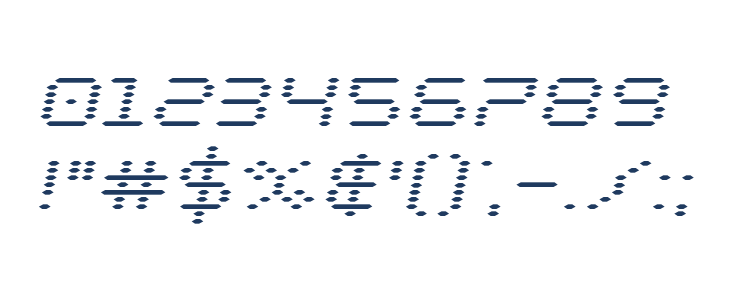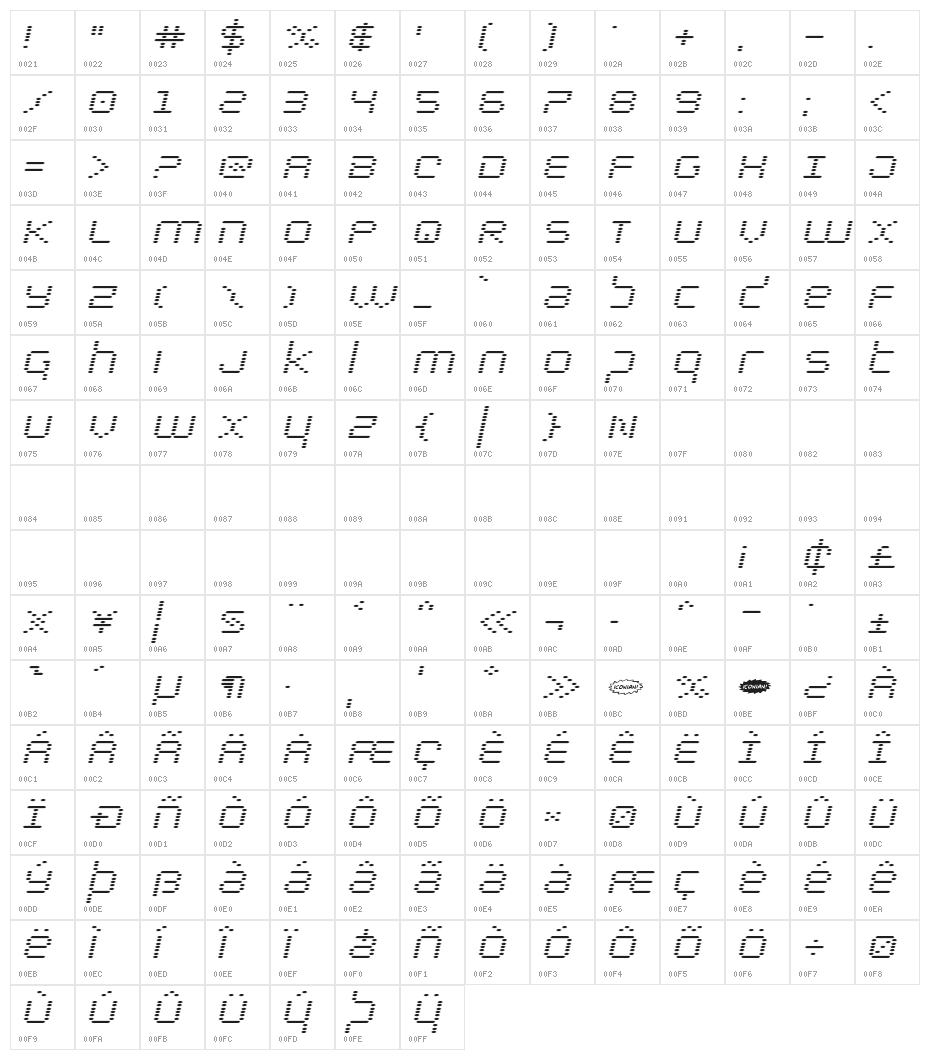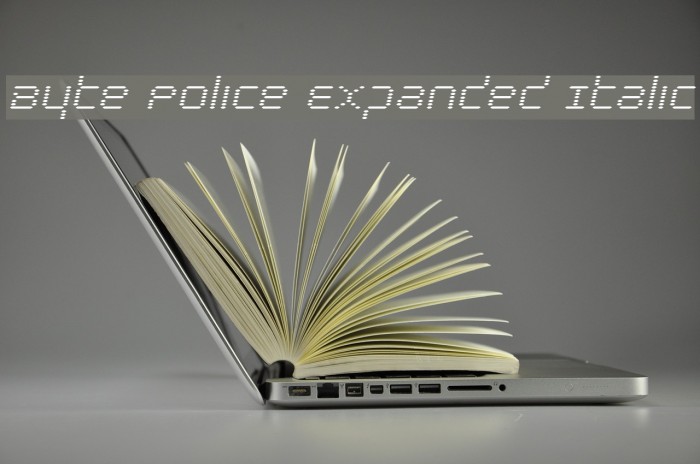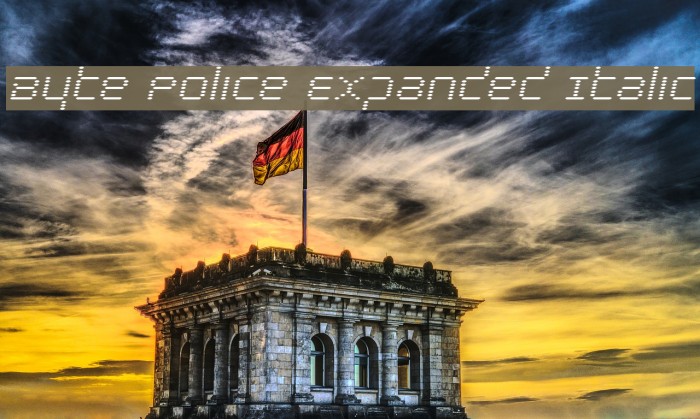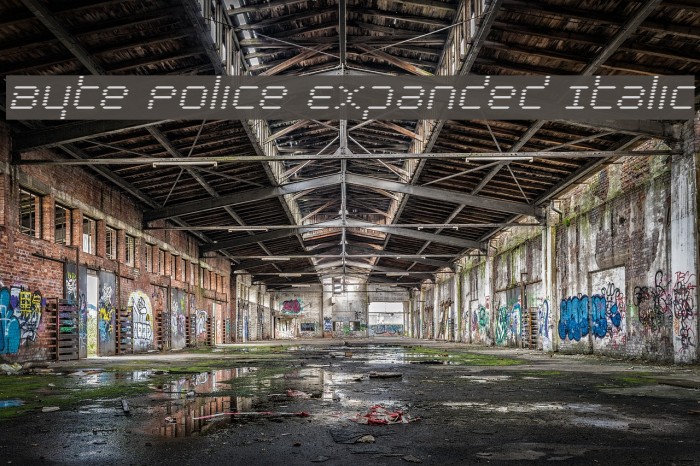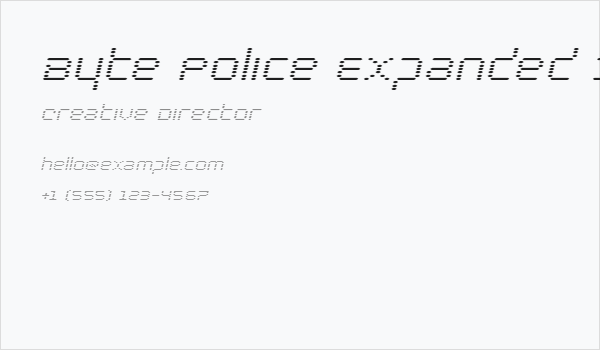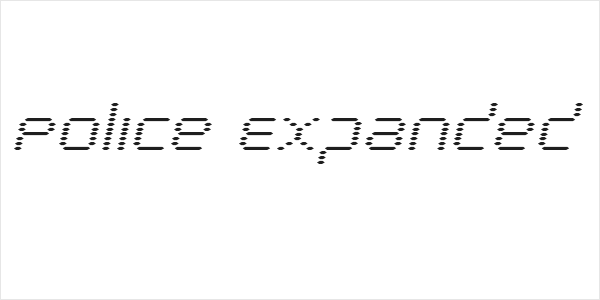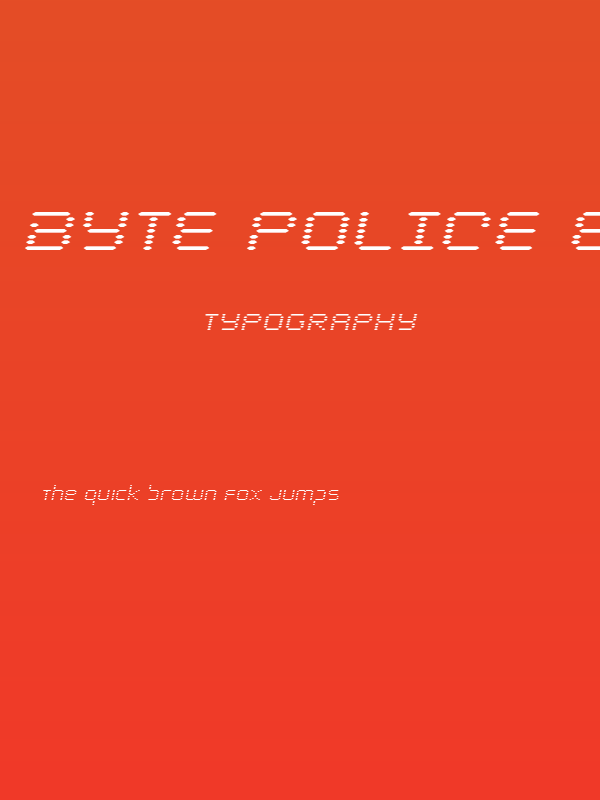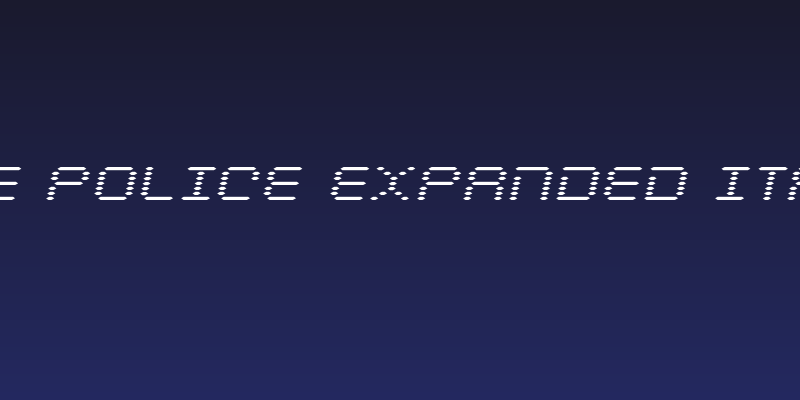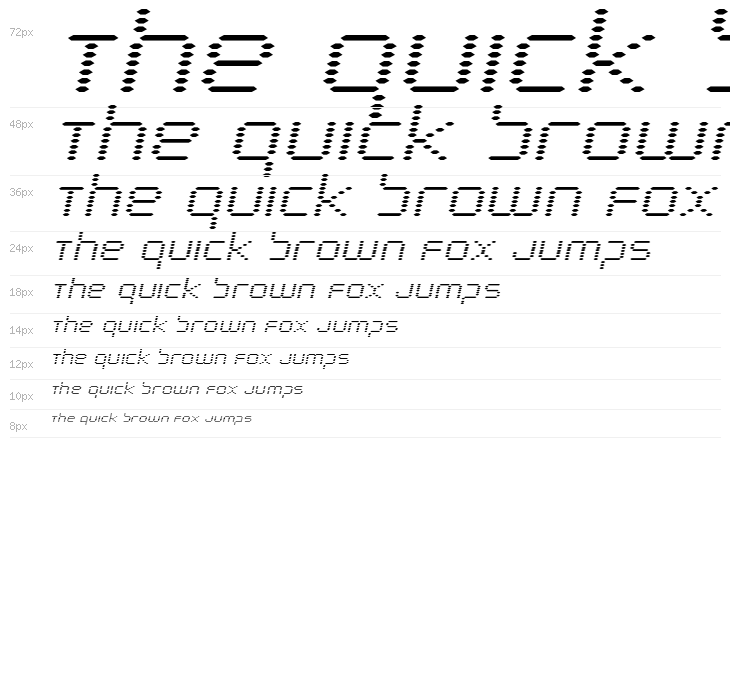
Byte Police Expanded Italic Font
Byte Police Expanded Italic Description
This font features a unique design where each character is composed of a series of dots, creating a digital or pixelated appearance. The characters are evenly spaced and maintain a consistent height, giving the font a structured and orderly look. The italic style adds a dynamic slant to the characters, enhancing its modern and tech-inspired aesthetic. The expanded width of the characters provides a sense of openness and readability, making it suitable for digital displays or futuristic themes. The font includes a full set of uppercase and lowercase letters, numbers, and a variety of special characters, ensuring versatility in its application.
| Use Case | Headlines, Logos, Digital displays |
| Proposed Projects | Ideal for digital displays, tech-themed projects, futuristic designs, and creative branding. |